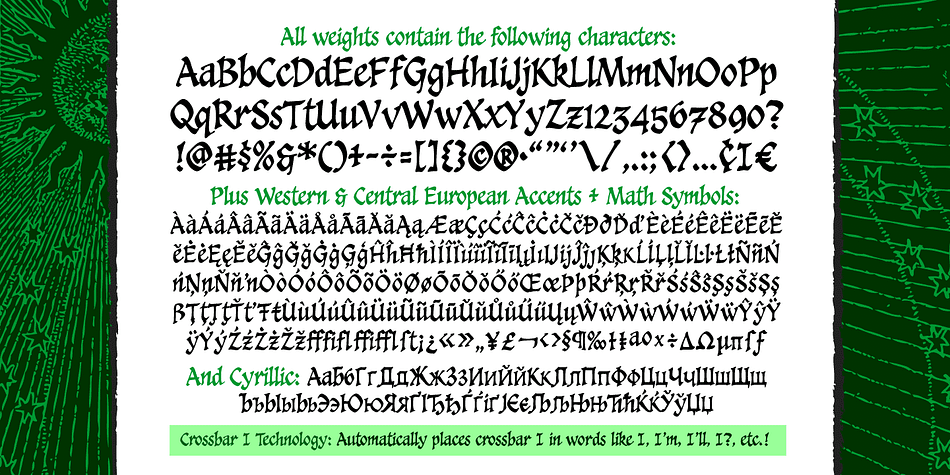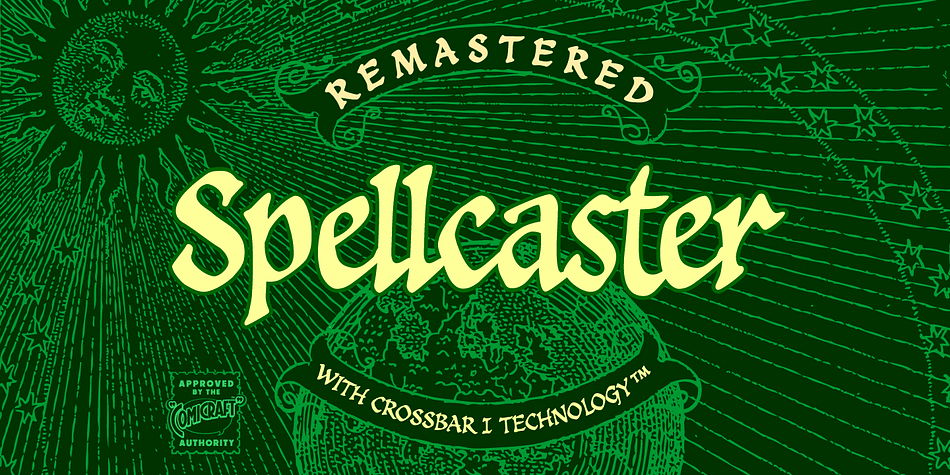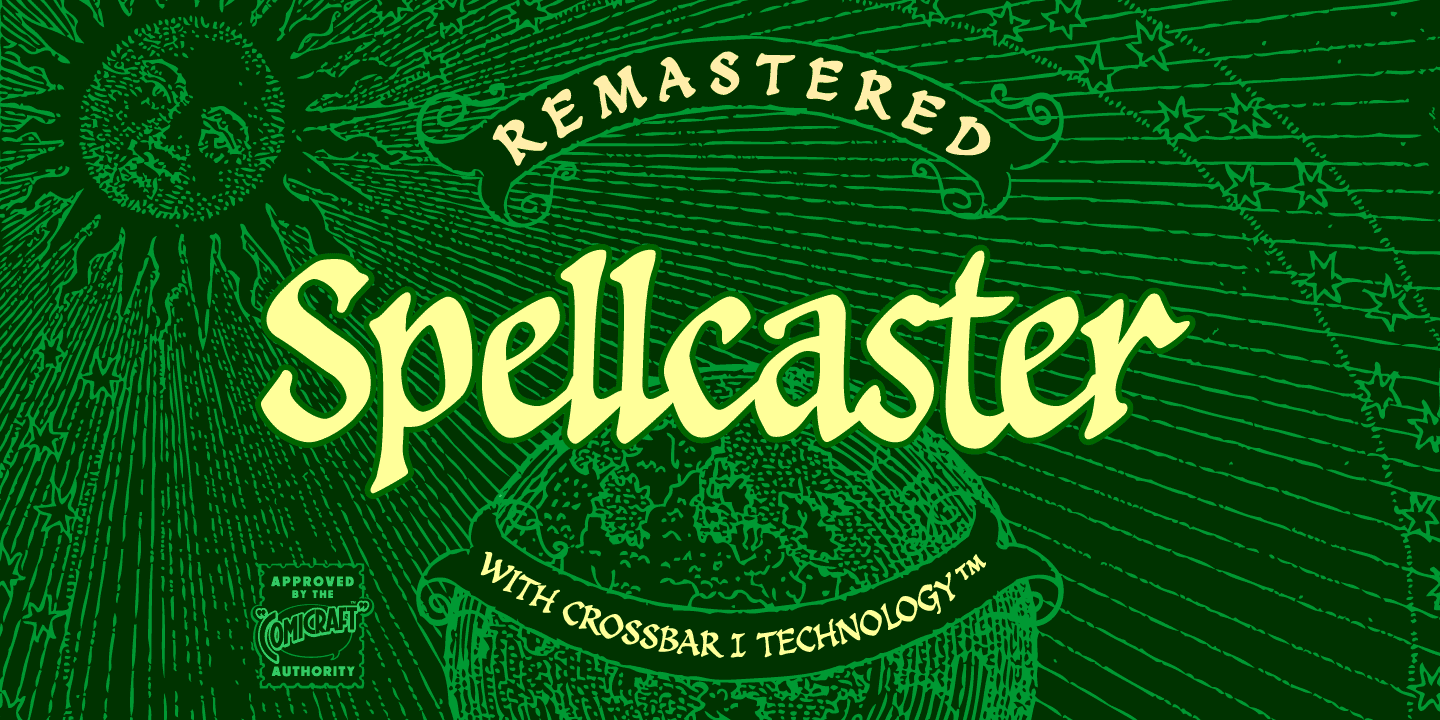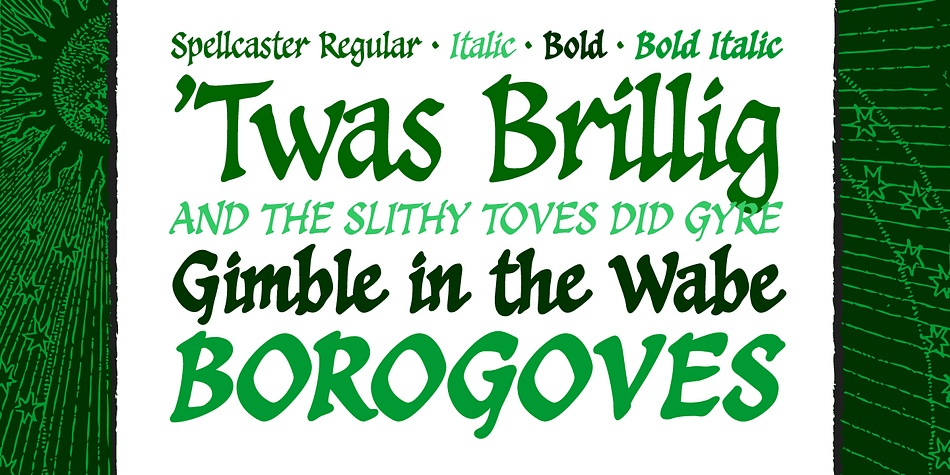
Designed by John Roshell, Spellcaster is a comic and hand drawn font family. This typeface has four styles and was published by Comicraft.
Raven hair and ruby lips, it may have been a trick of the light but I’m sure sparks flew from her fingertips. I definitely heard echoed voices in the night, of a restless spirit on an endless flight. If I remember correctly she held me spellbound in the night, with dancing shadows and firelight. Yes, I think I did see a crystal ball on the table, showing the future, the past and I did drink the potion she offered me, when I really should have gotten out of there fast.
And that’s my story and I’m sticking to it, your honor. It was that girl with the ruby hair and raven lips, I’m telling you. She has my wallet too.
Four weights (Regular, Italic, Bold & Bold Italic) with upper and lower case alphabets. Includes Western and Central European international characters.